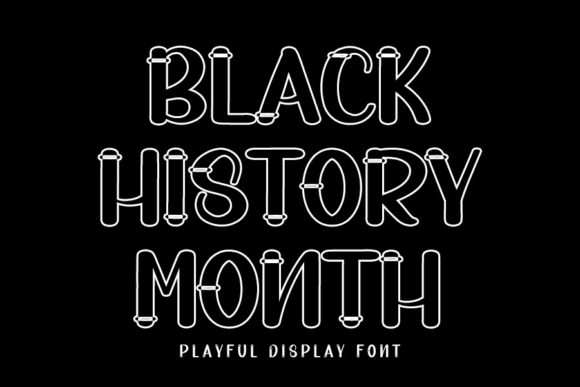
Embracing Heritage: The Power of Black History Month Font in Design
As we celebrate Black History Month, it’s essential to acknowledge the significance of this observance and how it can be beautifully represented in design. A crucial element in creating impactful designs is the choice of font. Introducing the Black History Month Font, a bold and thick lettered font that exudes a contemporary atmosphere and impeccable form, inspired by clean, classic calligraphy. In this article, we’ll delve into the world of this remarkable font, exploring its features, uses, and the endless possibilities it offers for designers and crafters alike.
The Inspiration Behind Black History Month Font
The Black History Month Font is a masterful blend of modernity and tradition. Its design is rooted in the elegance of classic calligraphy, yet it boasts a boldness and thickness that makes it distinctly contemporary. This font is not just a collection of letters; it’s a statement piece that can elevate any design project related to Black History Month. Whether you’re creating posters, flyers, social media graphics, or any other visual content, this font ensures your message is conveyed with both style and substance.
Key Features of Black History Month Font
- Bold and Thick Lettering: The font’s bold and thick lettering makes it highly legible, even at larger sizes, ensuring your message stands out.
- Contemporary Atmosphere: Despite its classic inspiration, the font has a modern feel that will appeal to contemporary design sensibilities.
- Impeccable Form: Each letter is meticulously designed to ensure a harmonious and aesthetically pleasing appearance.
- Clean and Classic Calligraphy Inspiration: The font’s calligraphic roots give it an elegance and sophistication, making it perfect for a wide range of design projects.
Using Black History Month Font in Your Designs
The versatility of the Black History Month Font is one of its most appealing qualities. Here are some ideas on how to incorporate it into your design projects:
- Educational Materials: Create engaging and informative posters, flyers, and brochures for schools and educational institutions.
- Social Media Graphics: Use the font to craft compelling social media posts that celebrate Black History Month with style and impact.
- Event Promotions: Design eye-catching event posters and flyers for lectures, workshops, and celebrations related to Black History Month.
- Merchandise: Apply the font to t-shirts, mugs, and other merchandise to create meaningful and stylish items.
Tips for Maximizing the Impact of Black History Month Font
To get the most out of this powerful font, consider the following tips:
- Combine with Relevant Imagery: Pair the font with images that complement and enhance the message you’re trying to convey.
- Experiment with Colors: While the font’s boldness makes it stand out, experimenting with colors can add another layer of meaning and aesthetic appeal.
- Keep it Simple: Don’t overcrowd your design. The font’s boldness and elegance are often enough to make a statement.
The Black History Month Font is a valuable tool for designers and crafters looking to create impactful and meaningful designs. Its unique blend of boldness, thickness, and classic elegance makes it the perfect choice for celebrating Black History Month. By incorporating this font into your projects, you’re not only paying tribute to the significance of the month but also contributing to a legacy of recognition and appreciation. Explore the endless possibilities with the Black History Month Font and let your designs speak with boldness and beauty.